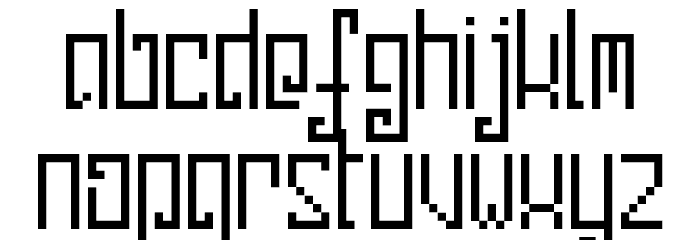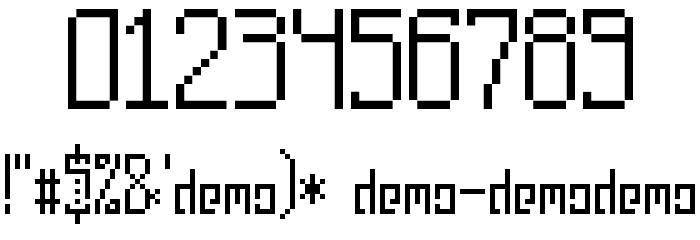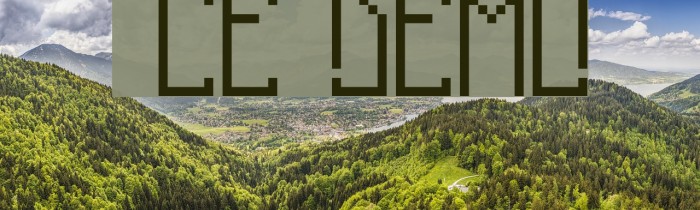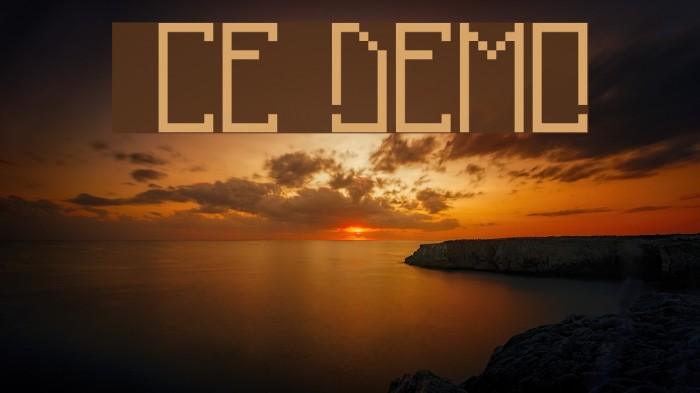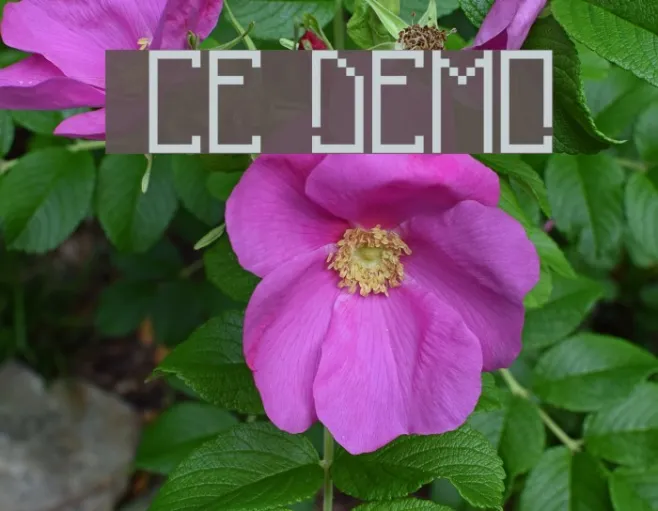
pixelanky CE DEMO Font
This font features a distinct pixelated design, reminiscent of early digital displays and retro video games. Each character is constructed with a grid-like precision, giving it a blocky and geometric appearance. The uppercase and lowercase letters maintain a consistent height, enhancing its uniformity and making it ideal for digital-themed projects. The numerals and special characters follow the same pixelated style, ensuring a cohesive look across all text elements. Its unique style captures a sense of nostalgia while offering a modern twist, making it suitable for creative and playful designs.
A pixelated, retro-inspired font with a blocky, geometric design.
- Proposed Projects: Ideal for video game graphics, digital art, retro-themed posters, and tech-related branding.
- Overall Style: Retro, Digital
- Use Case: Headlines, Logos, Digital Art